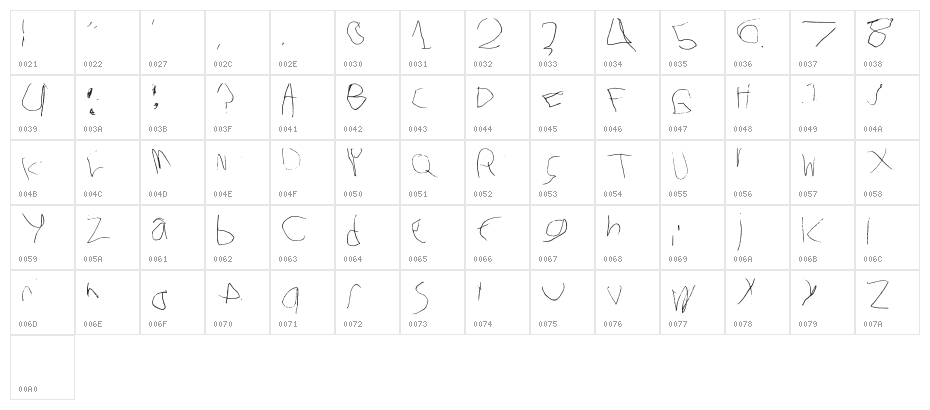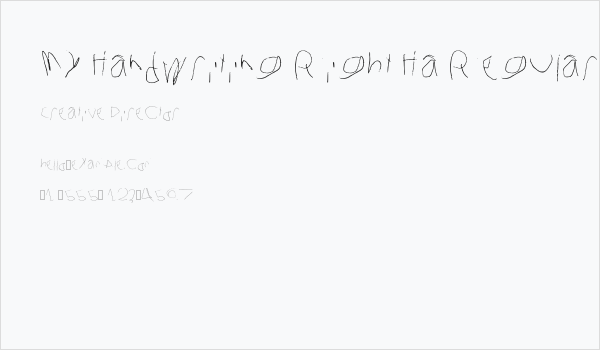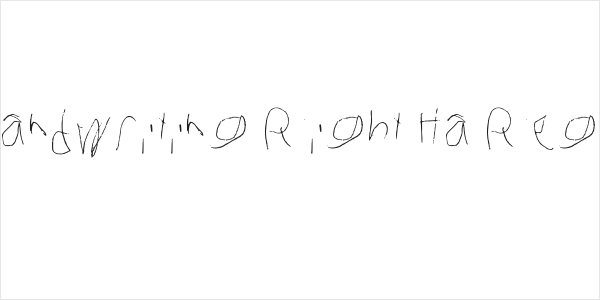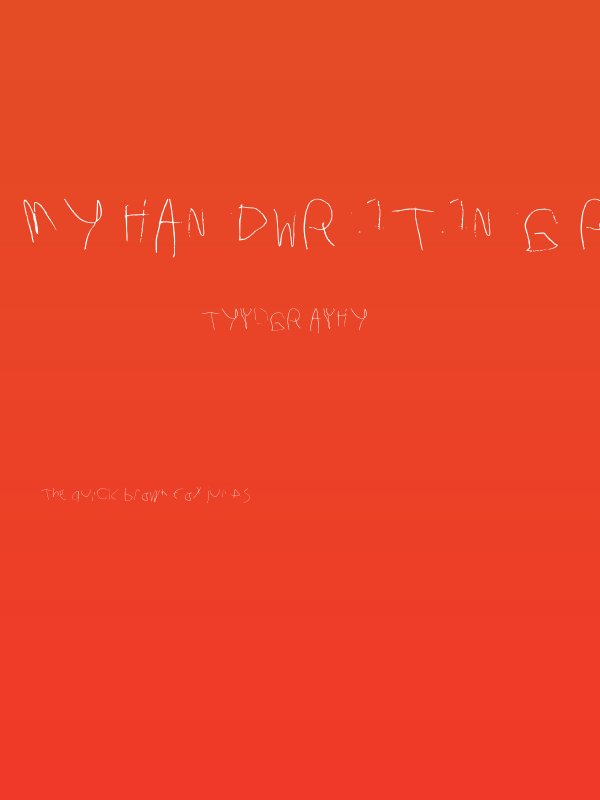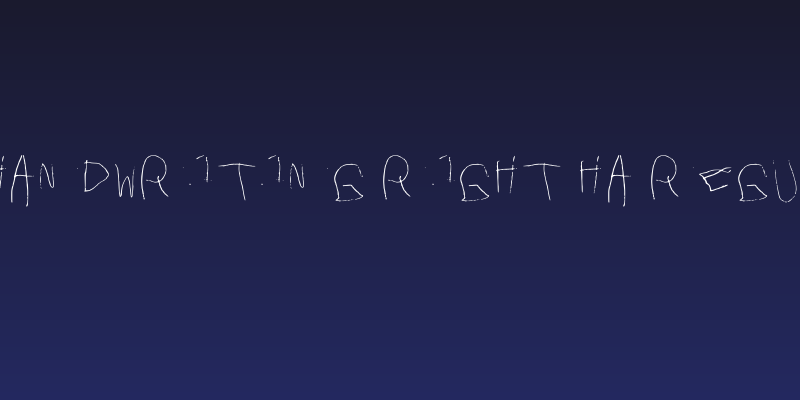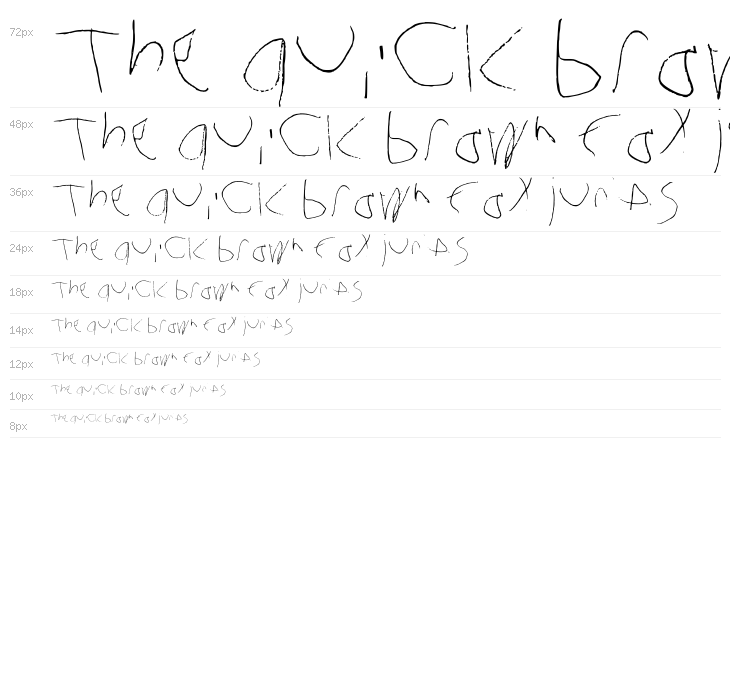
My Handwriting Right Ha Regular Font
My Handwriting Right Ha Regular Description
This font captures the essence of a personal, handwritten style, characterized by its irregular and organic strokes. The letters vary in size and alignment, giving it an authentic, casual feel. The strokes are uneven, with some letters appearing more angular while others are rounded, mimicking the natural flow of handwriting. The overall appearance is informal and approachable, making it suitable for projects that require a personal touch. The numerals and special characters maintain the same handwritten quality, ensuring consistency throughout the typeface.
| Use Case | Personal notes, Greeting cards, Informal invitations |
| Proposed Projects | Ideal for personal notes, greeting cards, informal invitations, and creative projects that benefit from a personal, human touch. |